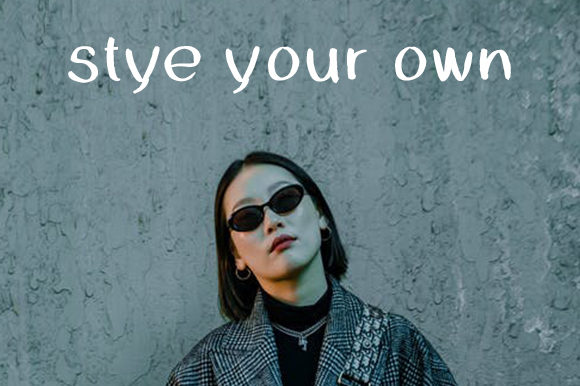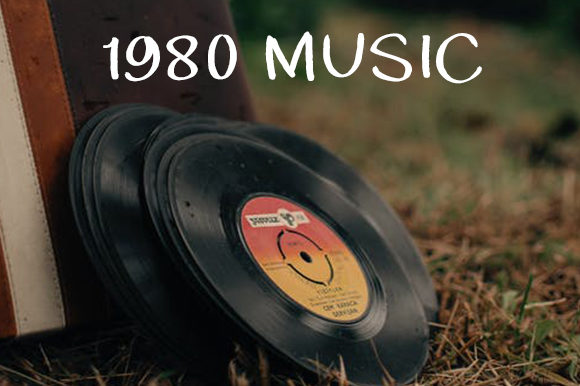
Grunge Font
db-ku.com - Script & Handwritten -- Grunge is a simple and neat script font. Add this font to your creative ideas and notice how it will make them stand out!